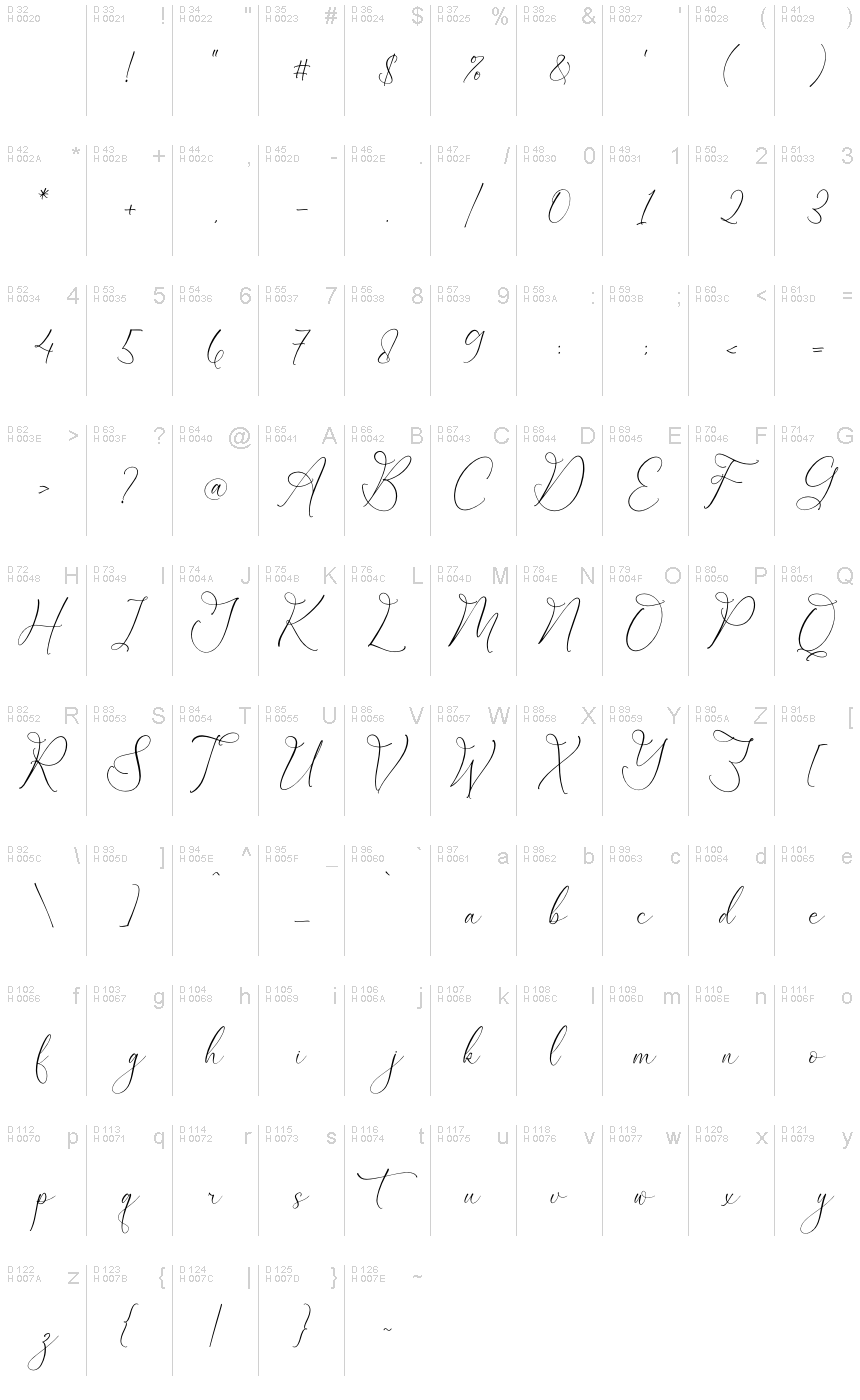
Garbina Sarleta
Garbina Sarleta, a creation of Storytype Studio, dances across the page with the grace of calligraphy at its finest. Its delicate strokes and elegant flourishes evoke the beauty of hand-penned script, giving it an air of sophistication and timeless charm. The font's light touch lends itself to a sense of intimacy and personalization, ideal for invitations, branding, or any design where a touch of elegance is desired.
Its versatile aesthetic makes Garbina Sarleta suitable for a variety of applications where a human touch is needed to convey warmth and refinement. Whether it graces the pages of wedding stationery or elevates the branding of boutique businesses, this font stands out as an embodiment of artistic finesse.